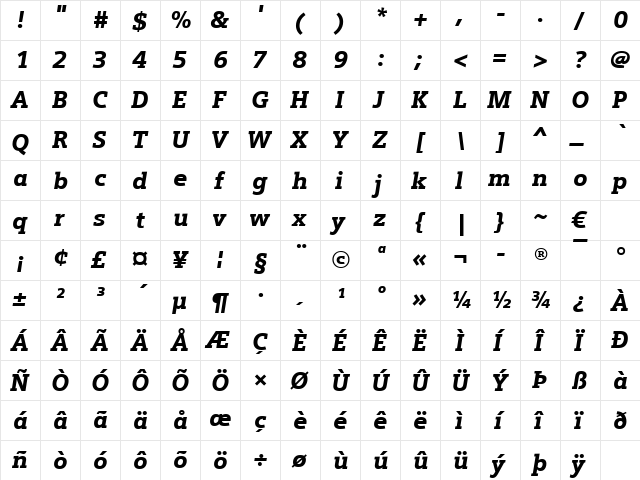
Siemens Slab Black Italic Font Preview
Design Context for Siemens Slab Black Typeface
Siemens Slab Black combines the readability of serif typography with the visual weight of a slab construction, resulting in a typeface that feels both authoritative and approachable. Its italic angle brings a sense of urgency and motion to the letterforms.
Suited to magazines, political campaign materials, bold packaging, and any setting where authority matters.
Pro Tip: Use Siemens Slab Black for headlines and subheadings where its slab serifs can make an impression. It also holds up well in mid-size body copy thanks to its sturdy construction.